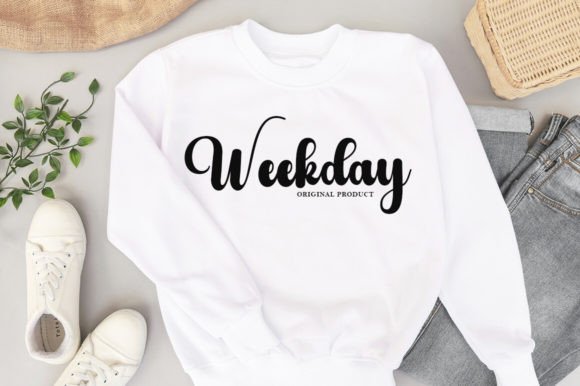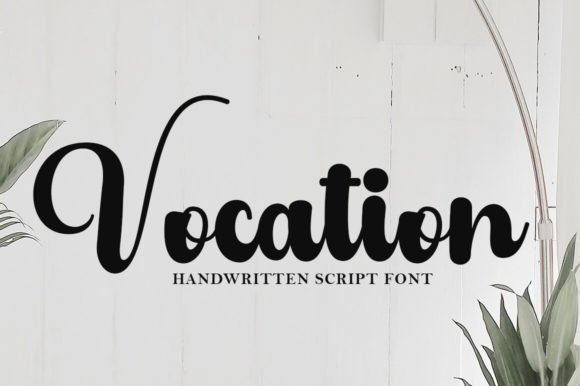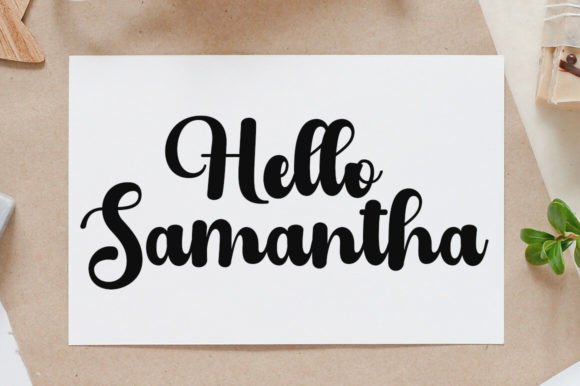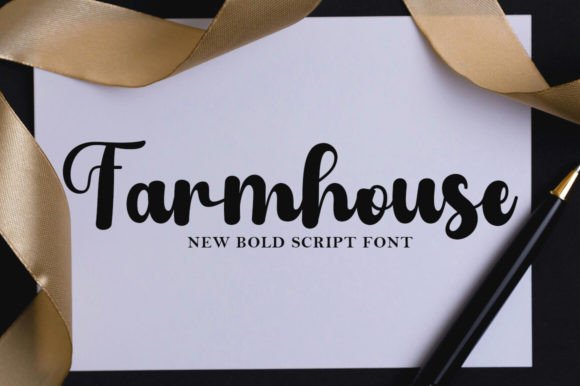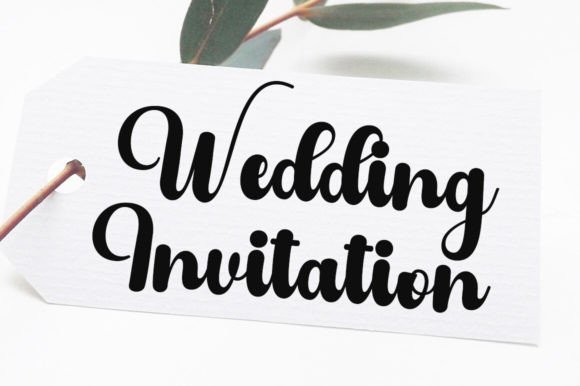
Introducing Angela Font: A Modern Calligraphy Design for Creative Projects
Are you a designer, crafty person, or someone who appreciates beautiful typography? Look no further than Angela Font, a stunning modern calligraphy design that’s perfect for a wide range of creative projects. This gorgeous font is casual, elegant, and features beautiful swashes that will add a touch of sophistication to any design.
What is Angela Font?
Angela Font is a modern calligraphy design that’s been carefully crafted to provide a unique and stylish look. Its casual and beautiful appearance makes it perfect for various purposes, including logos, product packaging, wedding invitations, branding, headlines, signage, labels, signatures, book covers, posters, quotes, and much more.
One of the standout features of Angela Font is its swashes, which add a touch of elegance and sophistication to any design. The font is also encoded with PUA Unicode, which allows full access to all additional characters without having to design special software. This makes it easy to use and accessible to designers and crafters of all levels.
Key Features of Angela Font
- PUA Unicode Encoding: Angela Font is encoded with PUA Unicode, which provides full access to all additional characters without having to design special software.
- Swashes: The font features beautiful swashes that add a touch of elegance and sophistication to any design.
- Casual and Beautiful: Angela Font has a casual and beautiful appearance that’s perfect for a wide range of creative projects.
Creative Projects with Angela Font
Angela Font is perfect for a wide range of creative projects, including:
- Logos: Create a stunning logo for your business or brand with Angela Font.
- Product Packaging: Add a touch of elegance to your product packaging with this beautiful font.
- Wedding Invitations: Create beautiful and unique wedding invitations with Angela Font.
- Branding: Use Angela Font to create a consistent brand identity across all your marketing materials.
- Headlines: Add a touch of sophistication to your headlines with this stunning font.
- Signage: Create eye-catching signage with Angela Font.
- Labels: Use Angela Font to create beautiful and elegant labels.
- Signatures: Add a touch of elegance to your signatures with this beautiful font.
- Book Covers: Create stunning book covers with Angela Font.
- Posters: Use Angela Font to create eye-catching posters.
- Quotes: Create beautiful and inspiring quotes with this stunning font.
Angela Font is a stunning modern calligraphy design that’s perfect for designers, crafters, and anyone who appreciates beautiful typography. With its casual and elegant appearance, swashes, and PUA Unicode encoding, this font is perfect for a wide range of creative projects. Whether you’re creating logos, product packaging, wedding invitations, or any other design project, Angela Font is sure to impress.